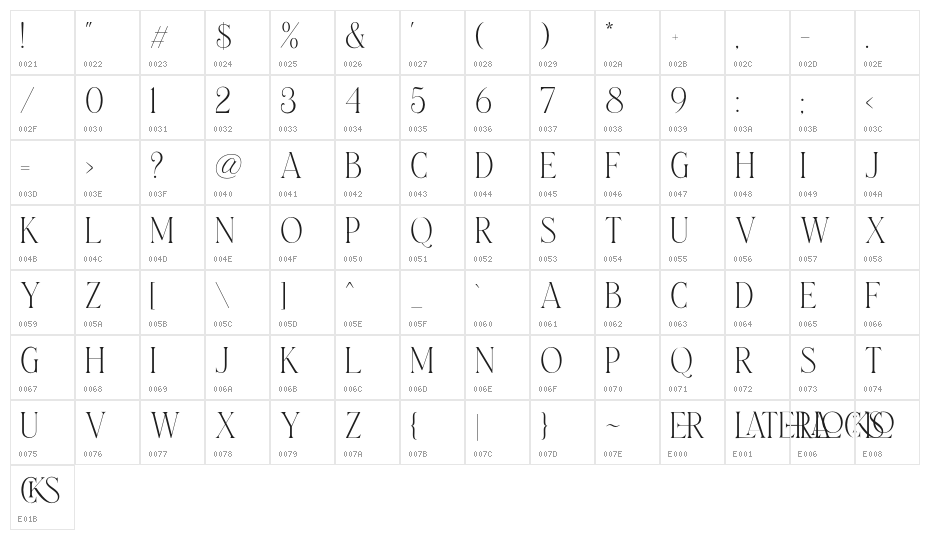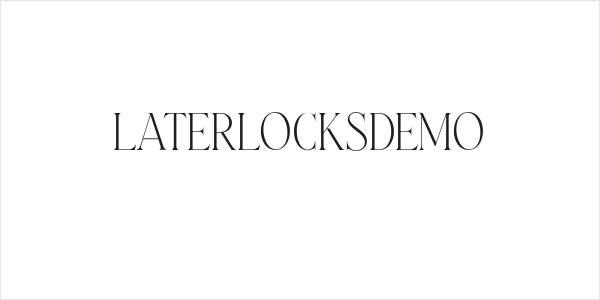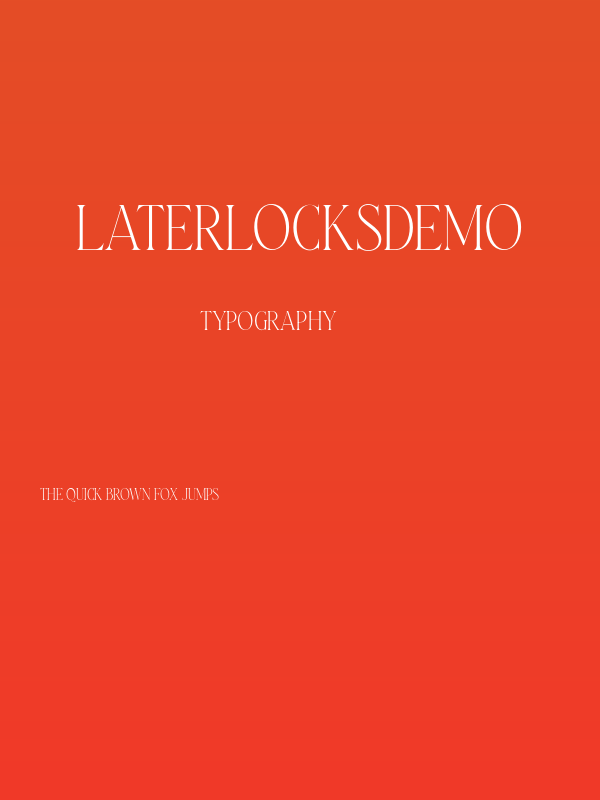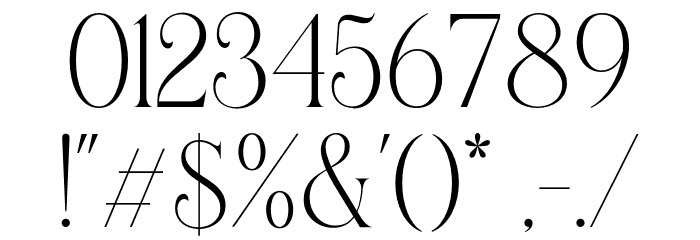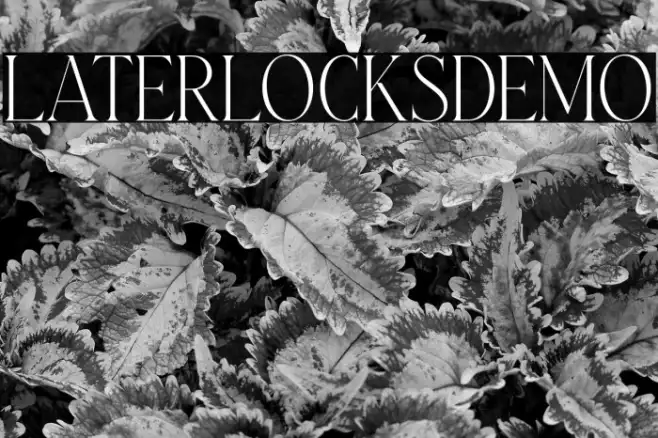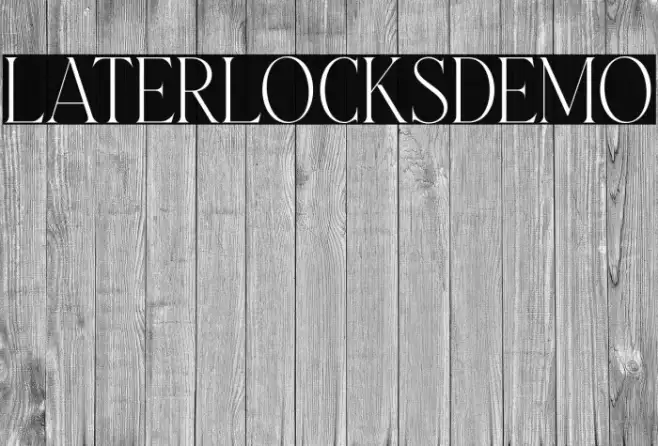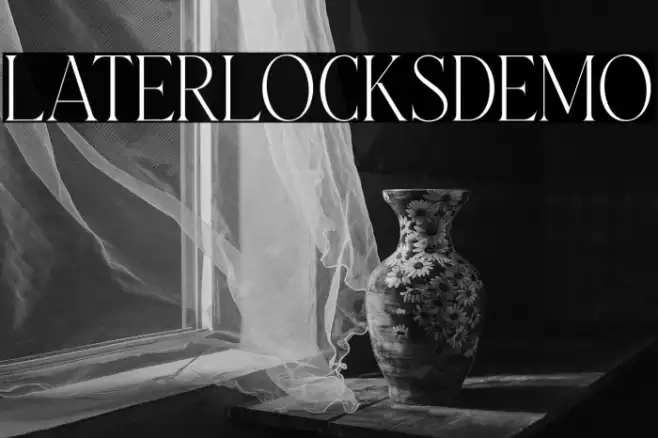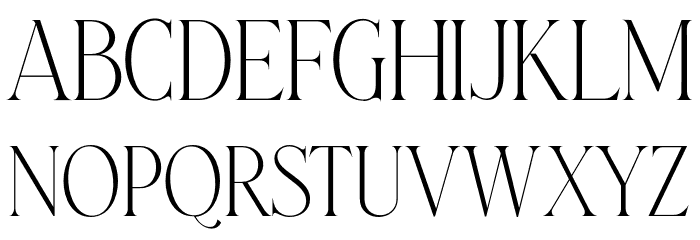
LaterlocksDEMO Font
LaterlocksDEMO Description
This font exhibits a refined and elegant style, characterized by its thin, elongated serifs and high contrast between thick and thin strokes. The uppercase letters are tall and stately, with a classic and sophisticated appearance. The lowercase letters maintain a consistent style, offering a harmonious blend with the uppercase. The numerals are distinct and clear, with a graceful curve that complements the overall aesthetic. Special characters are designed with the same attention to detail, ensuring a cohesive look across all glyphs. This font is ideal for projects that require a touch of elegance and sophistication.